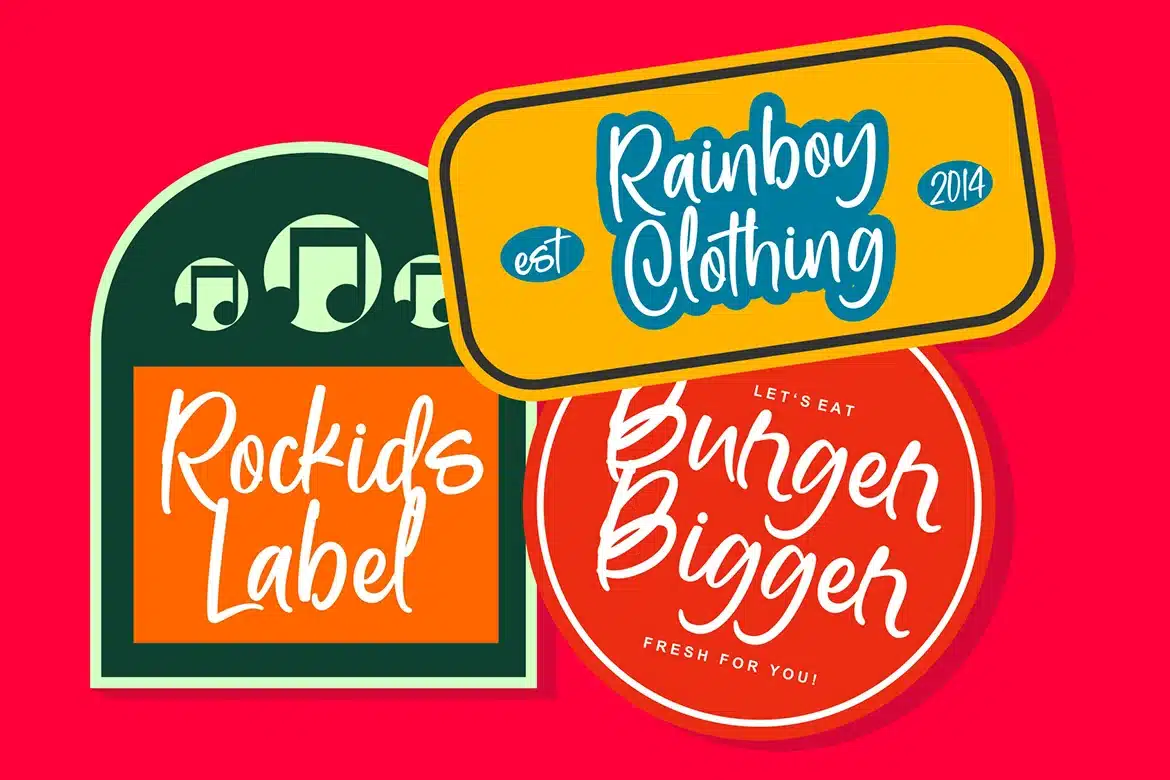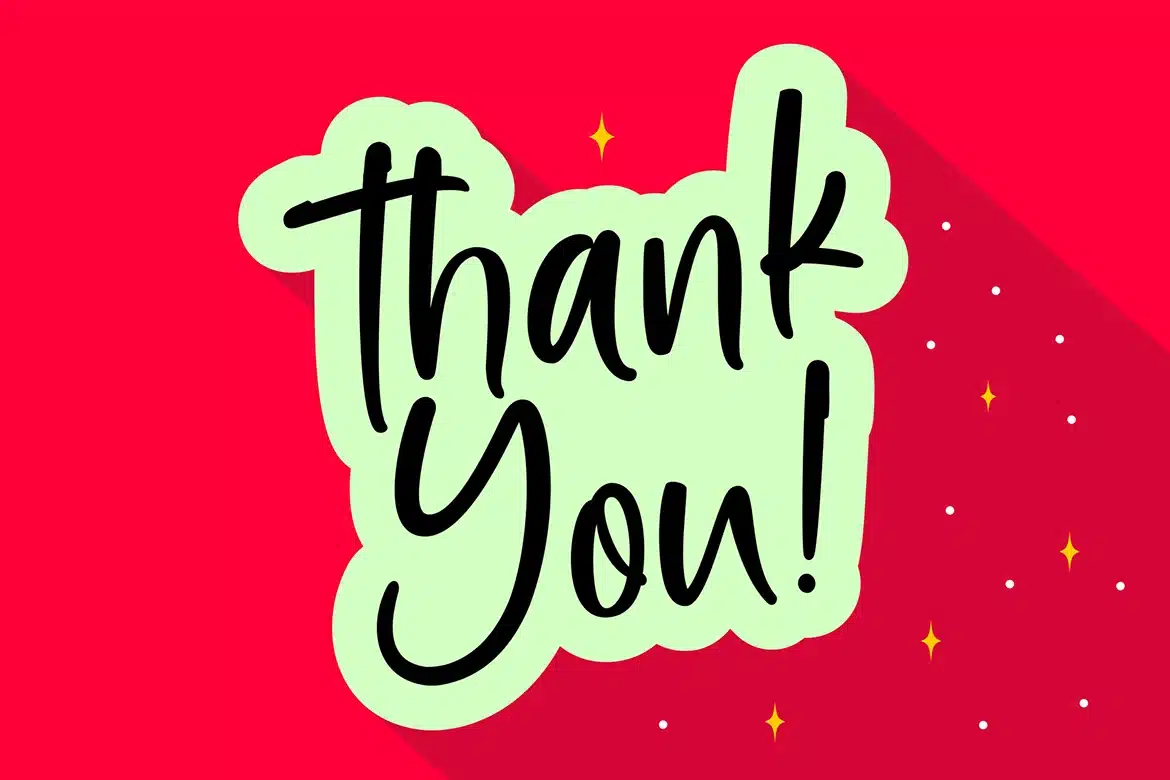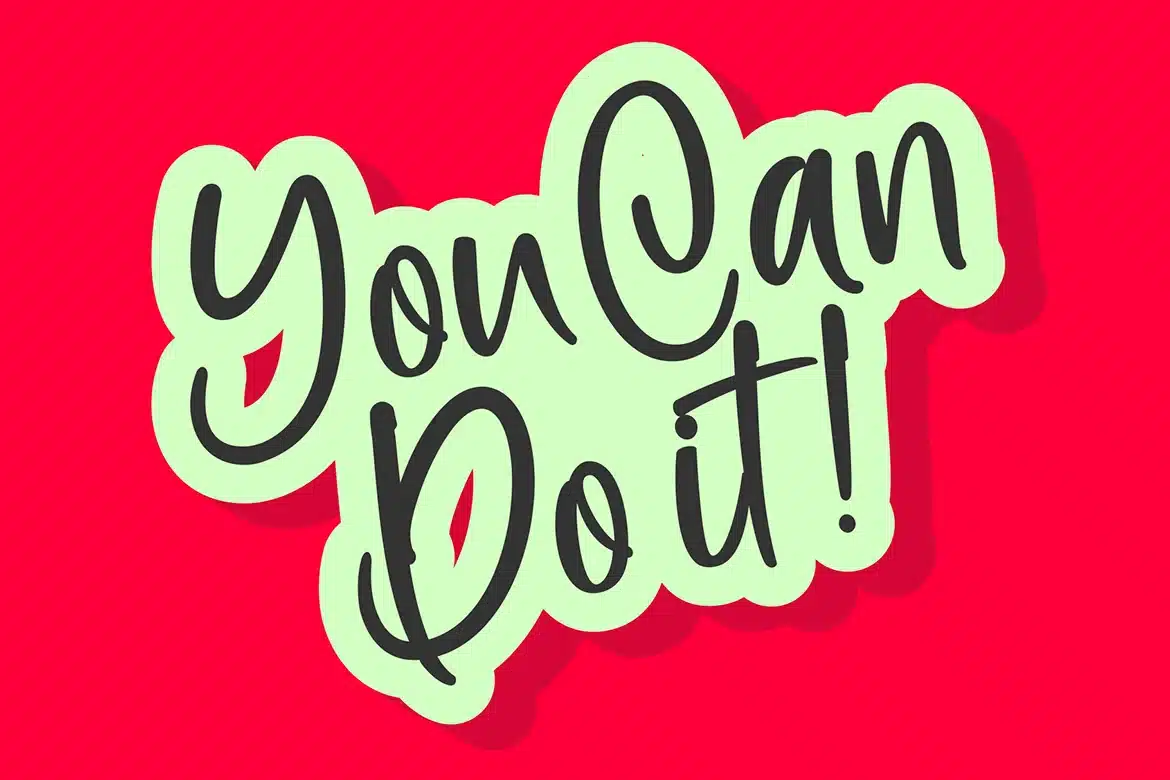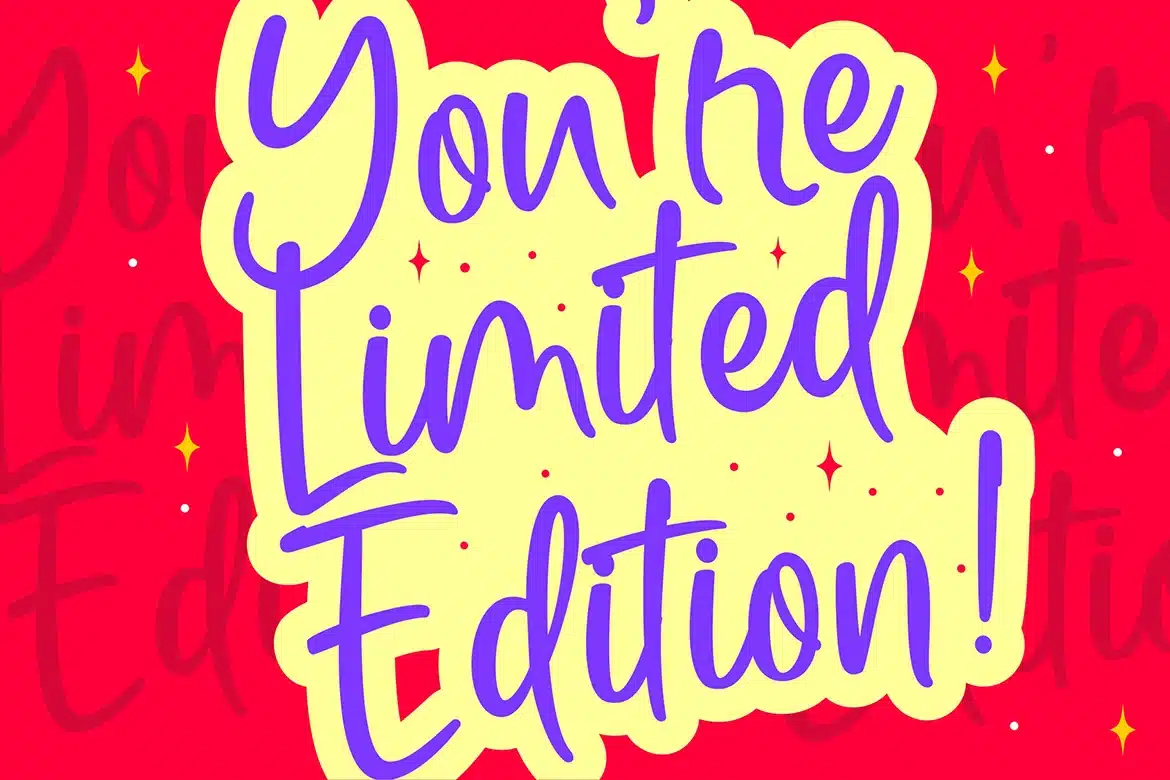
Mallibu Font
Mallibu is a fashionable and super-chilled new font with handwritten font script with some Elegant stylish.
Mallibu offers beautiful typographic harmony for a diversity of design projects, Branding, wedding invitation card designs, logotypes, business card designs, advertisements, product designs, stationery, product packaging, quotes and so on.
Font Features :
numeric & Multilingual support
Ligatures